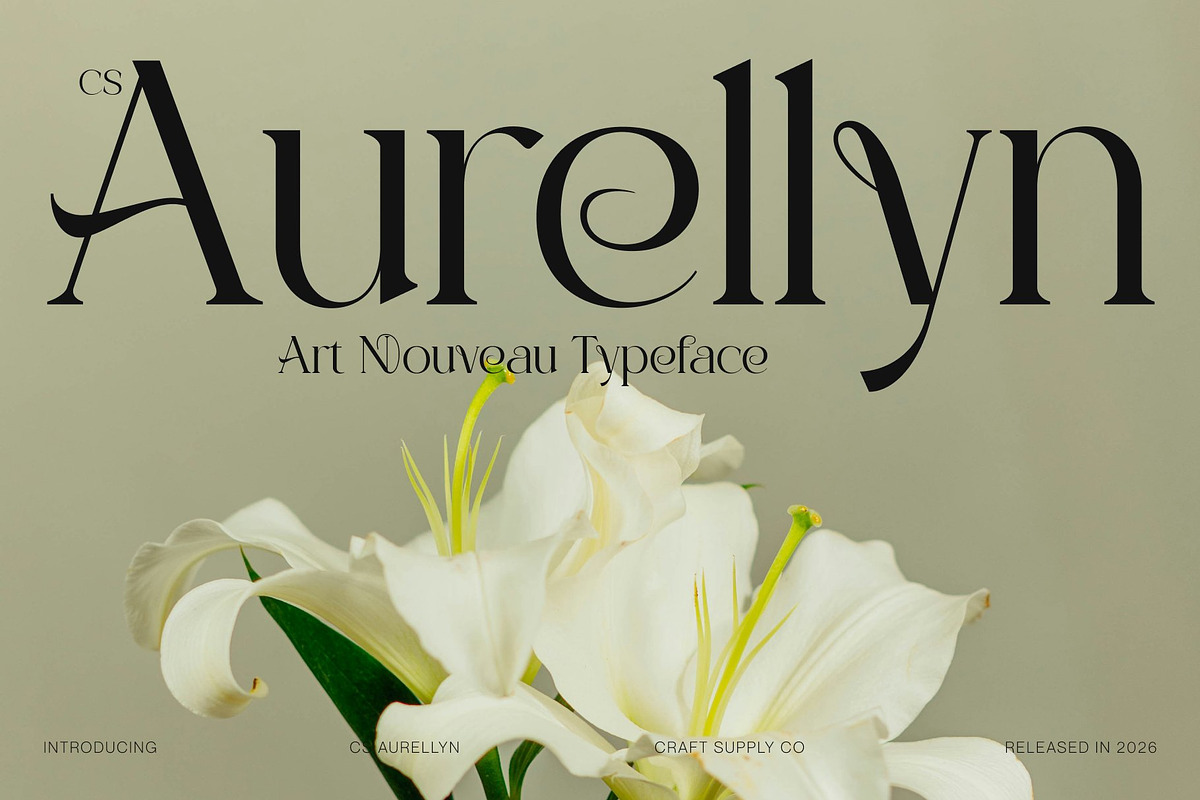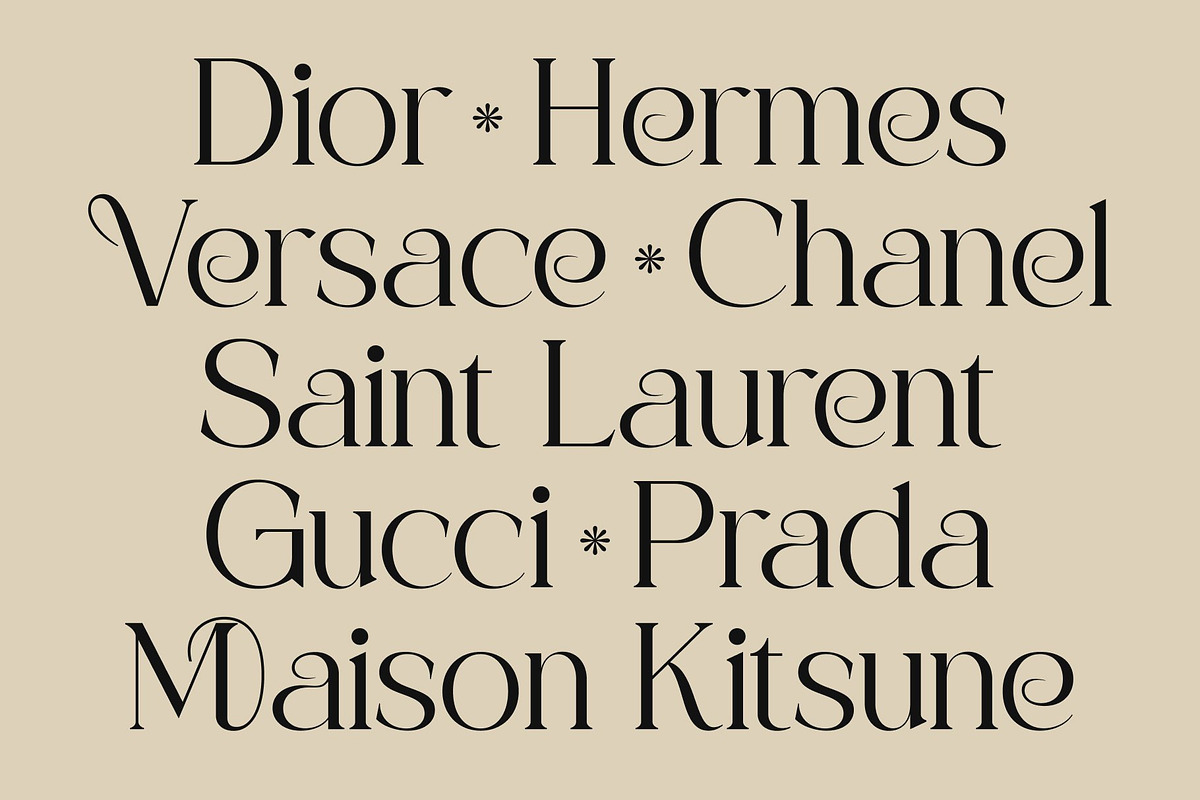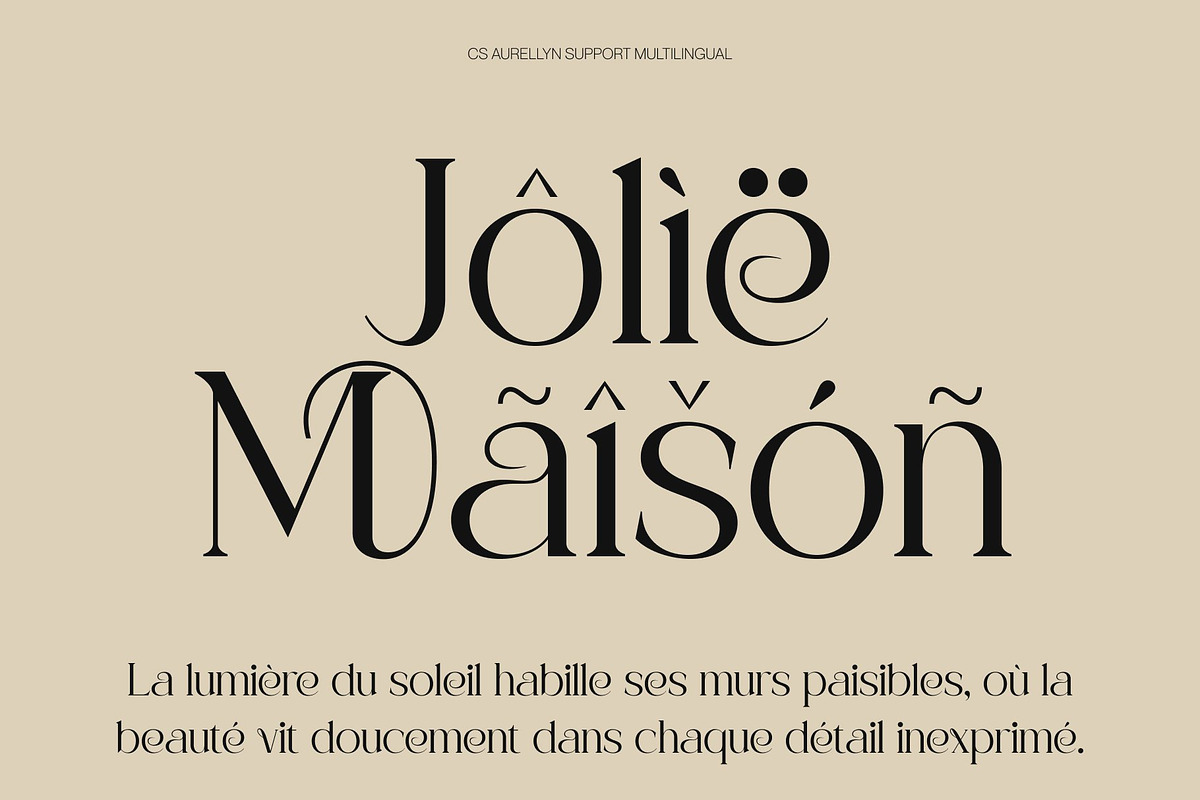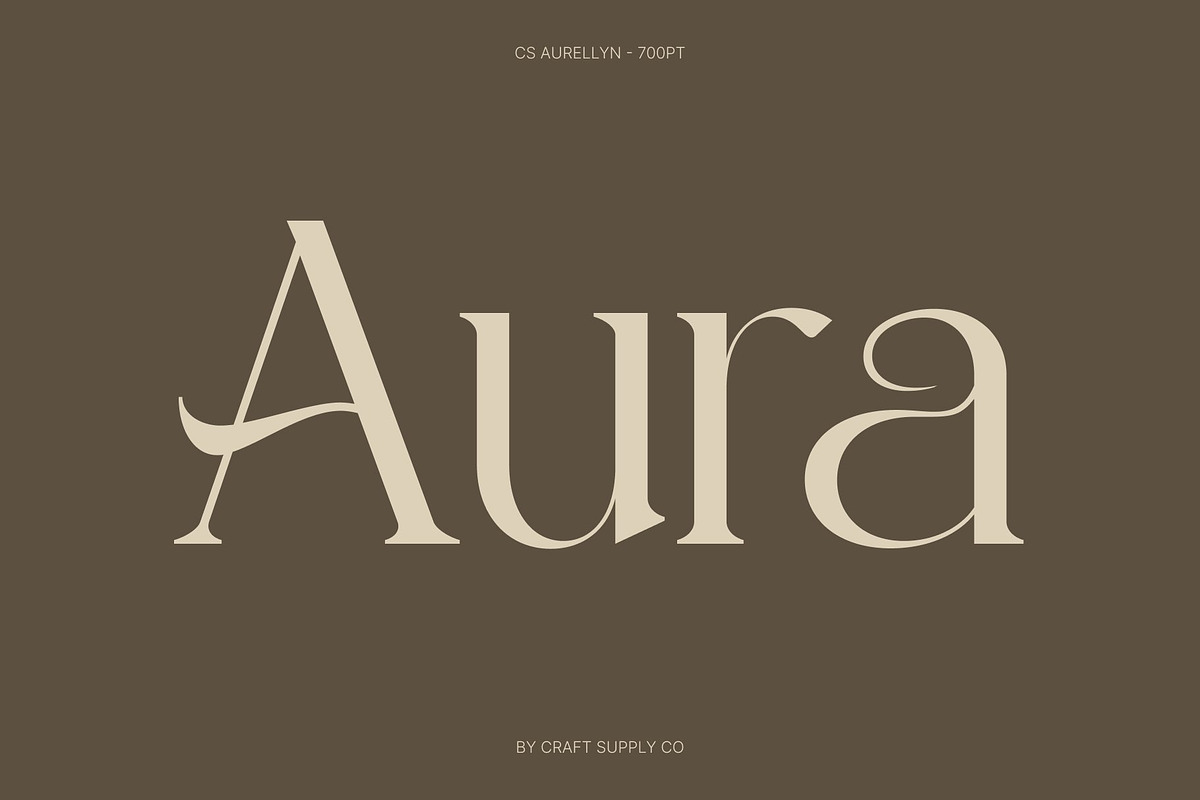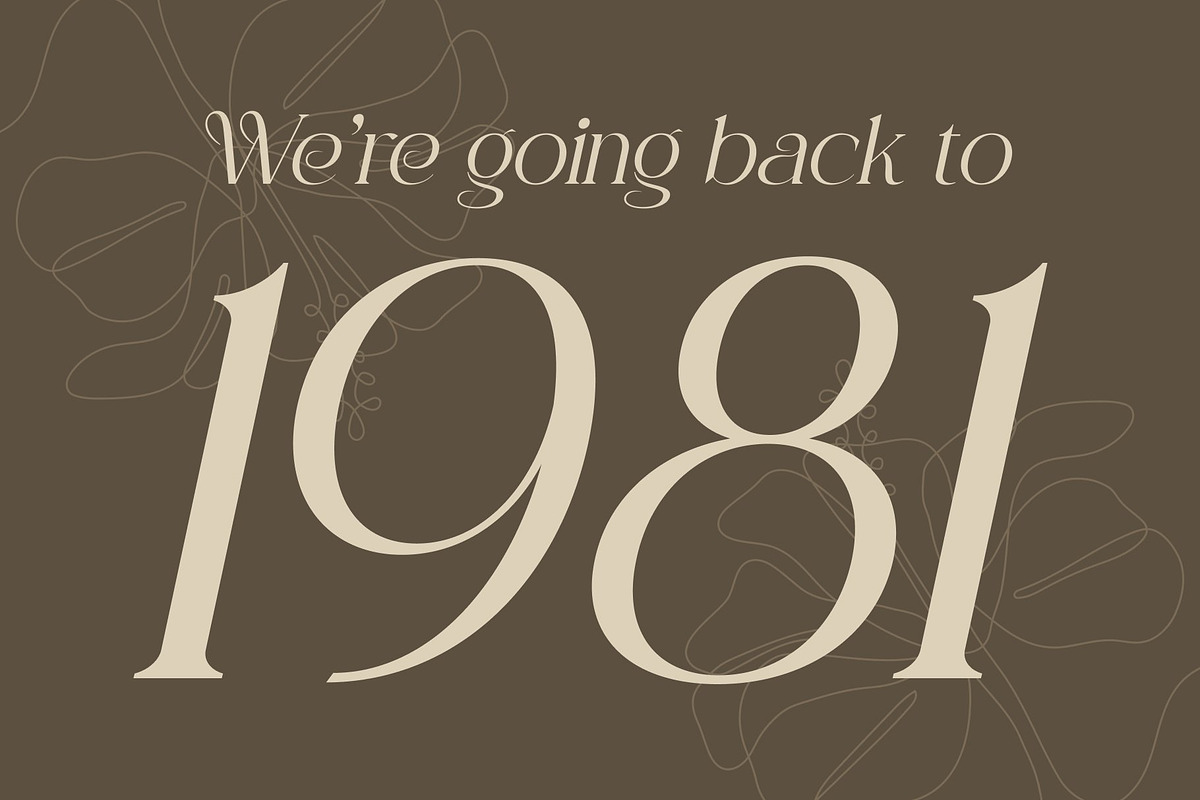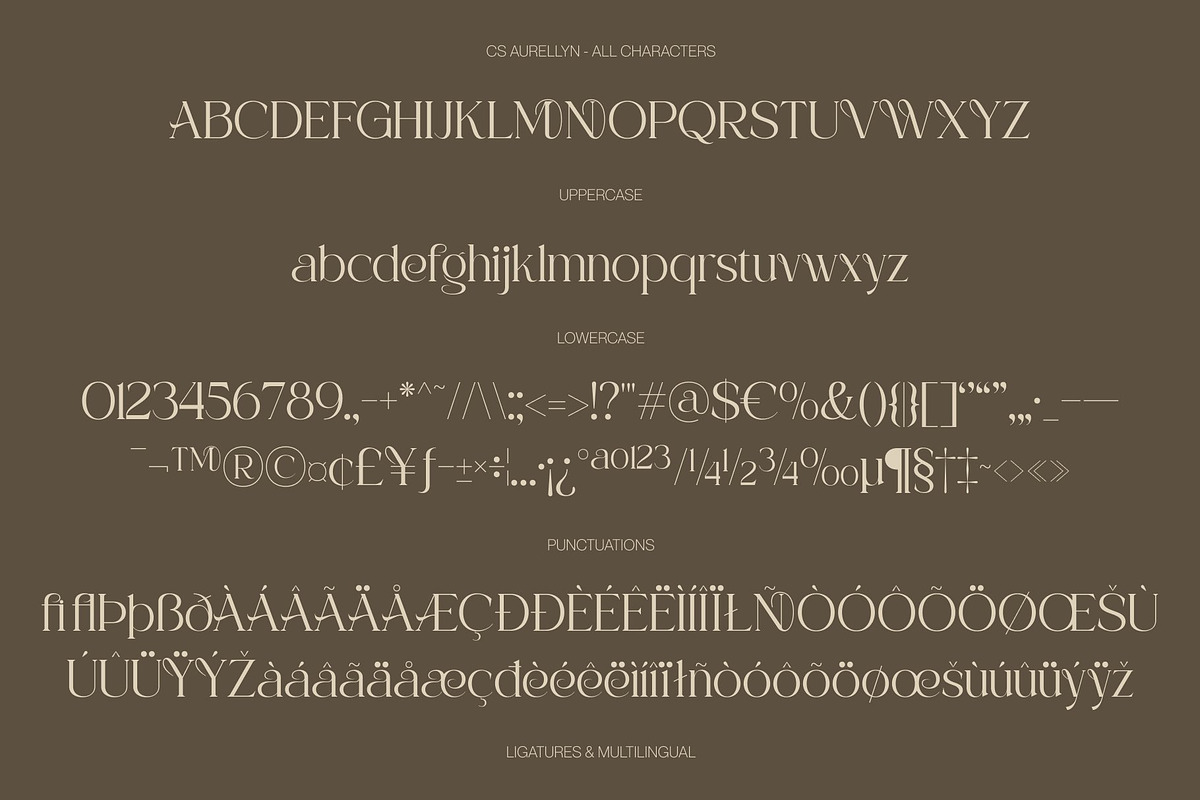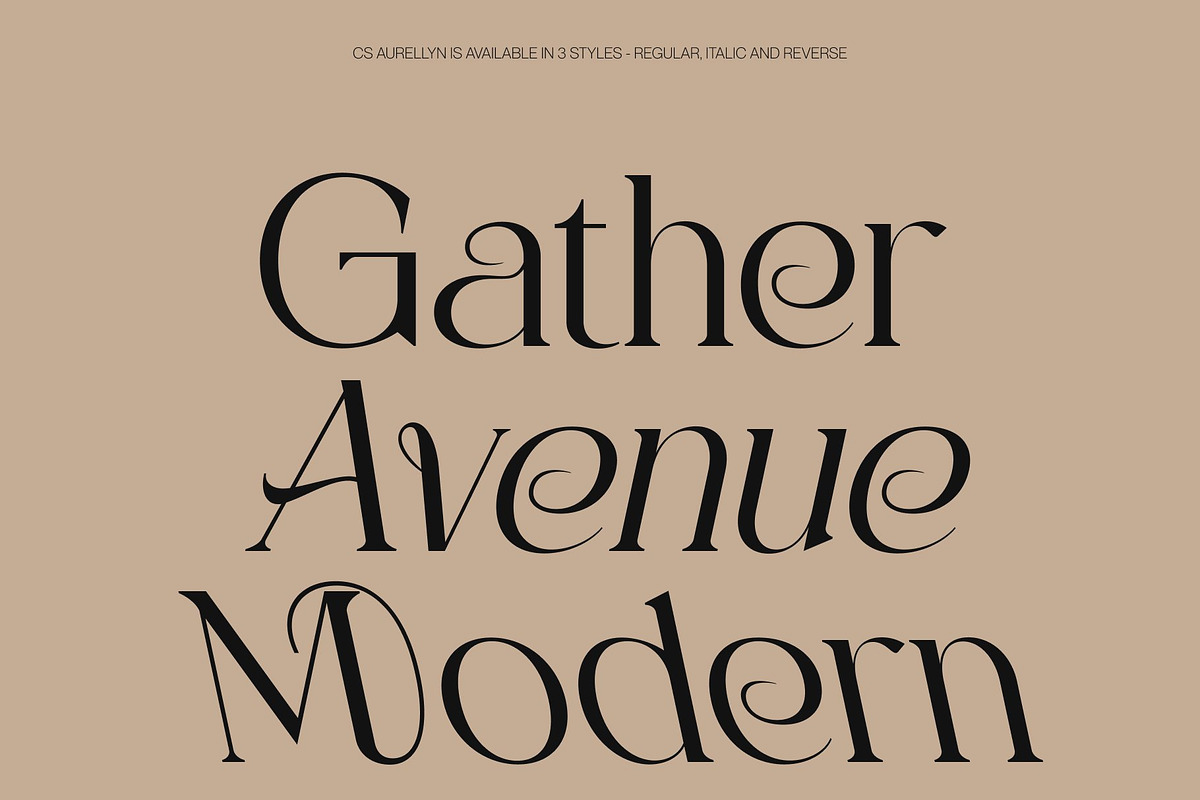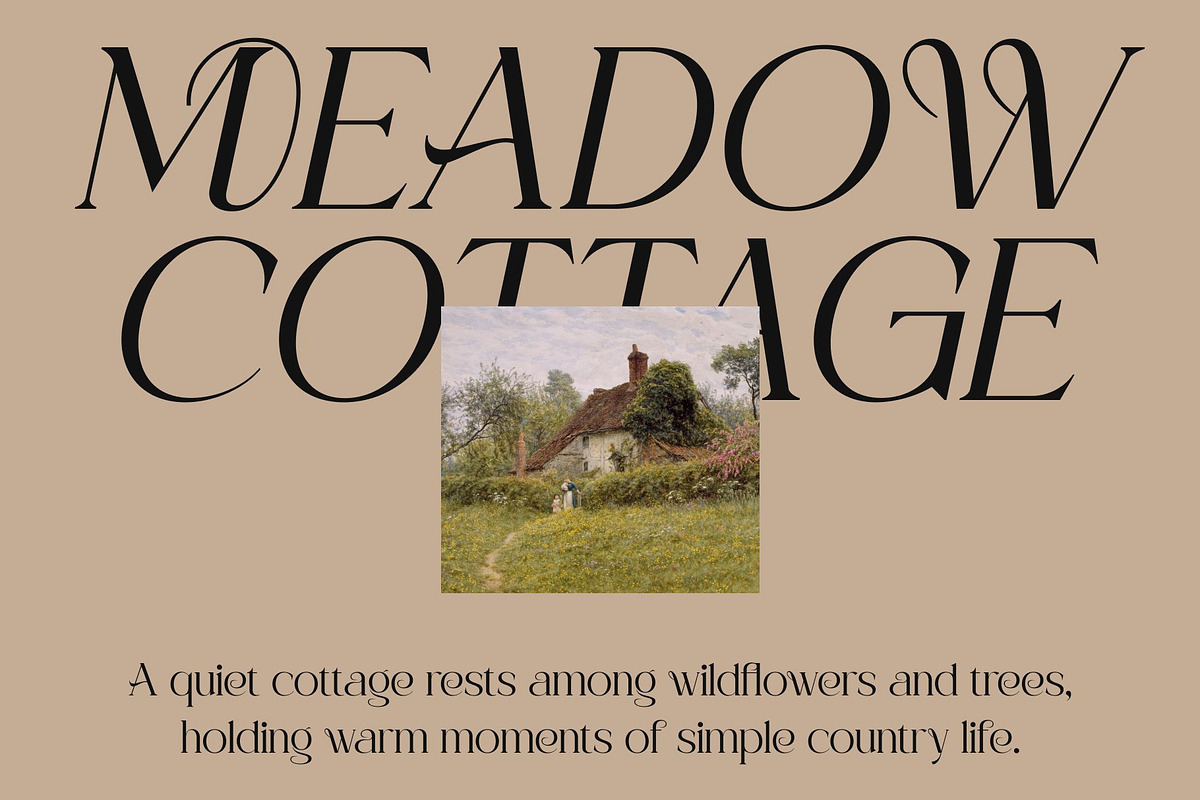
CS Aurellyn – Art Nouveau Font
CS Aurellyn – Modern Art Nouveau Serif with Elegant Flow
Modern Art Nouveau Serif Font with Organic Grace This is a modern Art Nouveau Serif font defined by smooth, flowing lines and graceful organic forms. Its design combines the elegance of classic Art Nouveau with a fresh, contemporary sensibility, resulting in a typeface that feels refined, stylish, and visually captivating. The font radiates sophistication while maintaining a lively and approachable character.
Organic Curves with Elegant Expression The letterforms of this font feature soft, natural curves and harmonious connections that evoke the fluidity of hand-drawn Art Nouveau lettering. Each character flows seamlessly into the next, creating a balanced and elegant rhythm that enhances readability while maintaining artistic beauty. These organic shapes give the font a sense of movement and personality.
Fresh Style with Contemporary Sophistication This font blends decorative elegance with modern clarity, producing a font that feels both timeless and current. Its fresh aesthetic allows it to stand out in high-end applications while remaining versatile and adaptable for various creative layouts. The elegant forms give the font a luxurious and fashionable appeal.
Perfect for Editorials, Luxury Branding, and Fashion Designed for premium and expressive applications, this is ideal for editorials, luxury branding, fashion campaigns, and sophisticated display designs. Its elegant Art Nouveau-inspired shapes make it perfect for headlines, logos, and promotional visuals that demand beauty, refinement, and contemporary elegance.